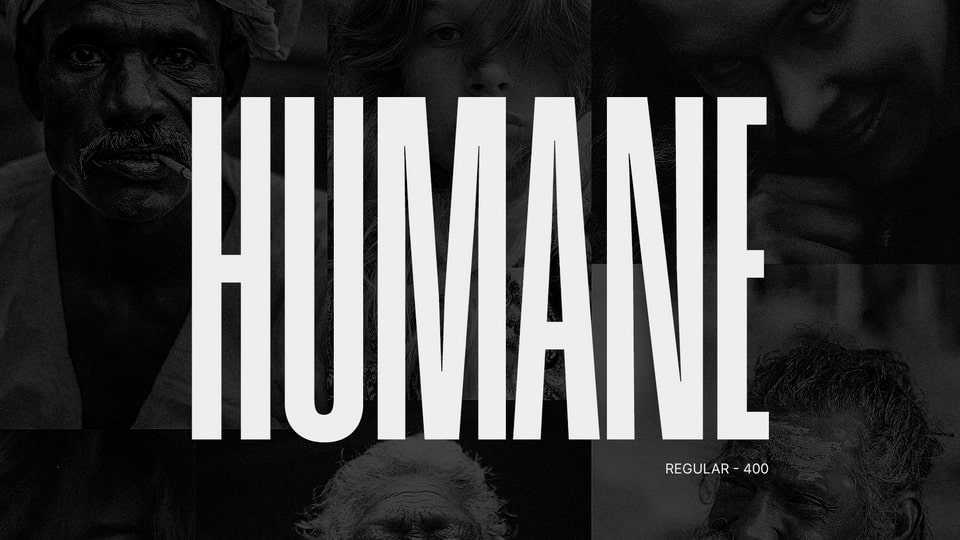
Download Humane font, a sans serif typeface dedicated to all human beings. Life is not fair to anyone, and everyone is facing their situation. Still, there is love and compassion. So Hang on and enjoy whatever you’ve got.
Designer: Rajesh Rajput